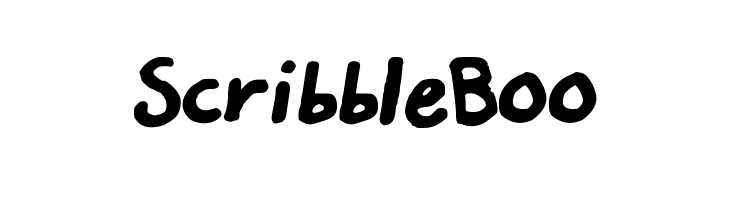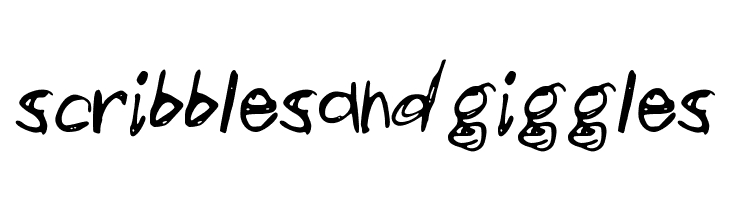
A playful, hand-drawn font with bold, irregular strokes and a whimsical style.
A playful, hand-drawn font with a lively, scribbled style.
A playful, casual handwritten font with dynamic strokes and a lively appearance.
A playful, hand-drawn font with bold, sketch-like outlines.